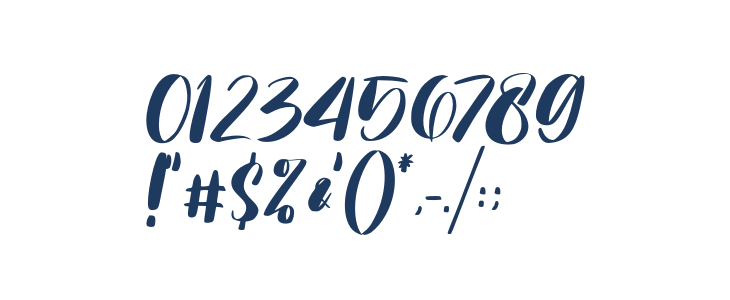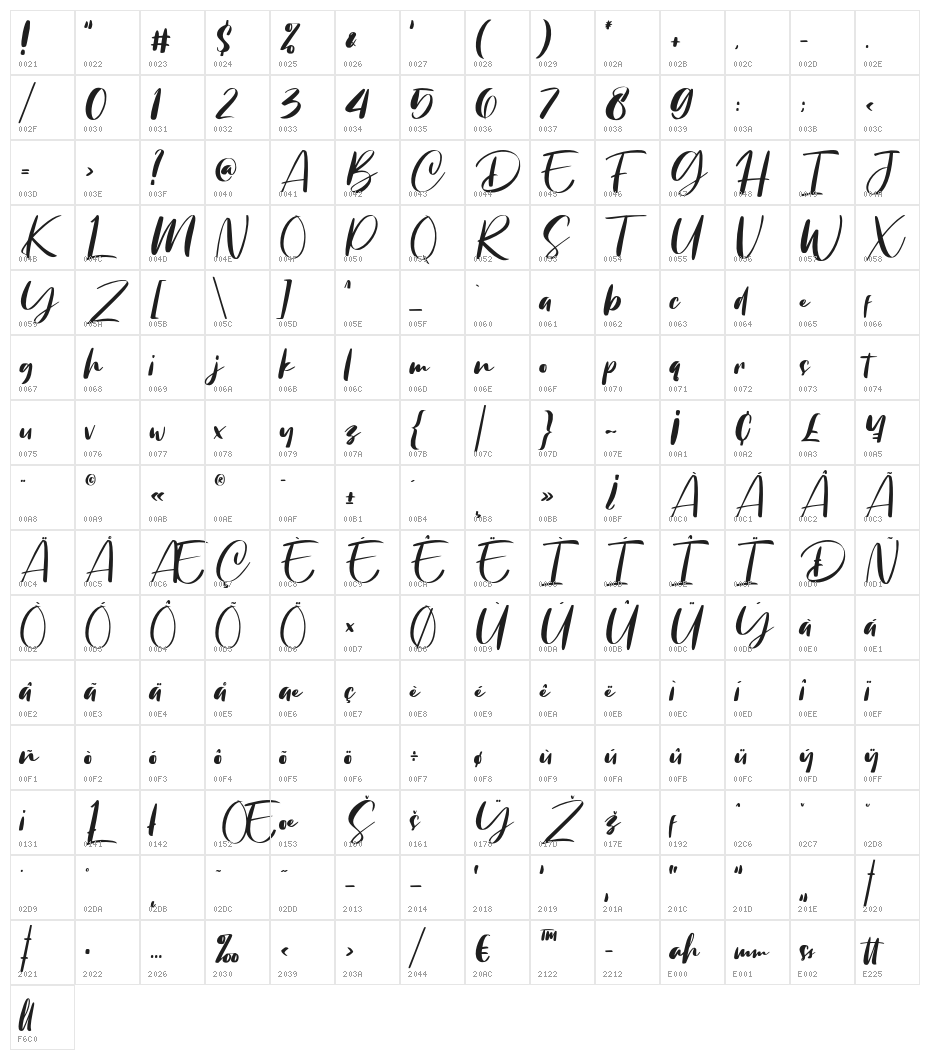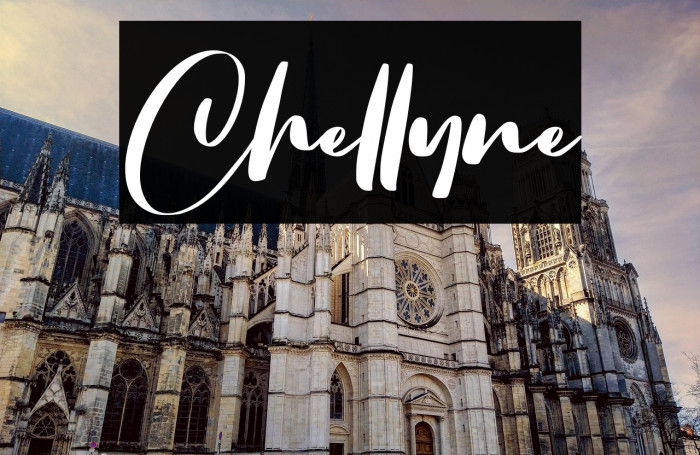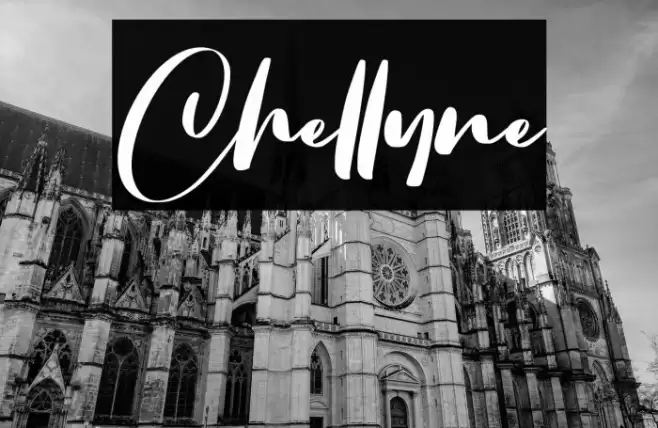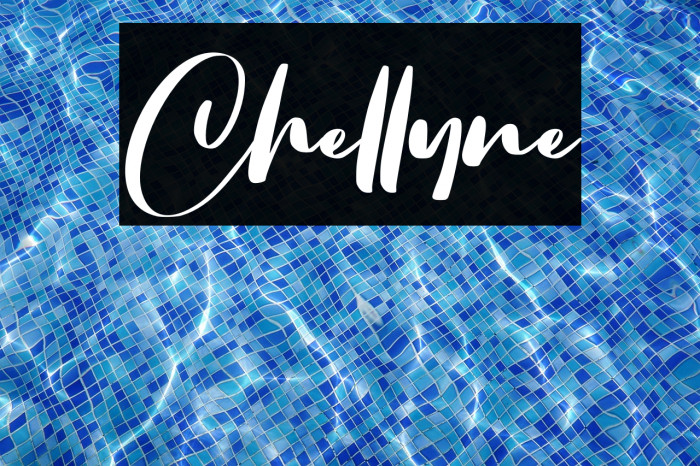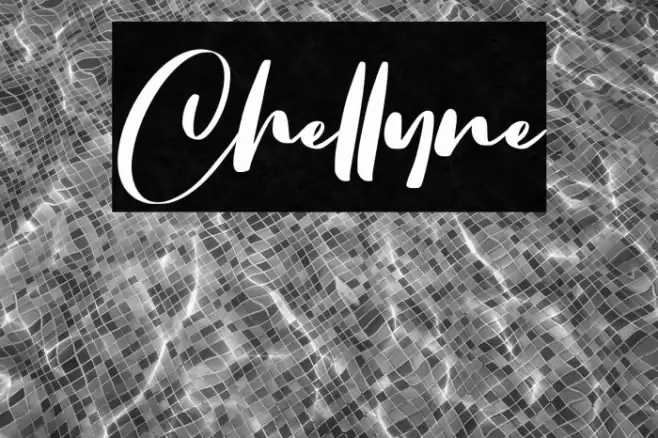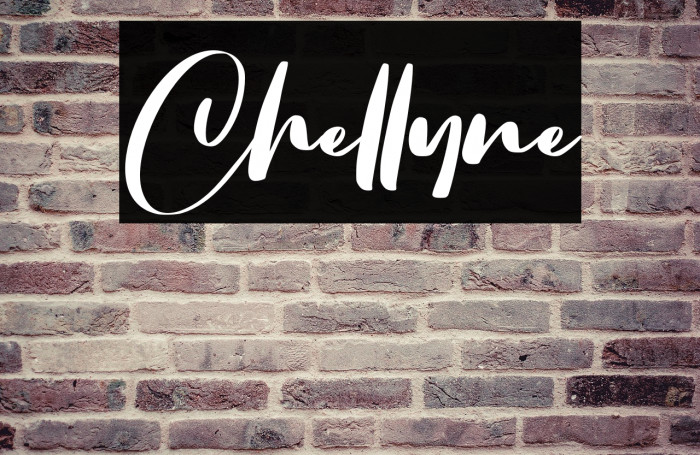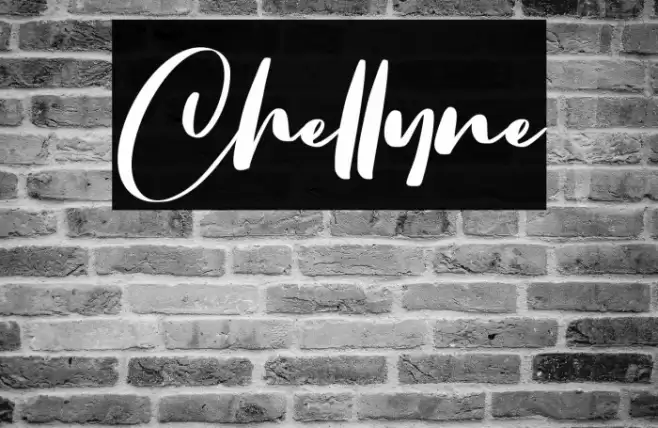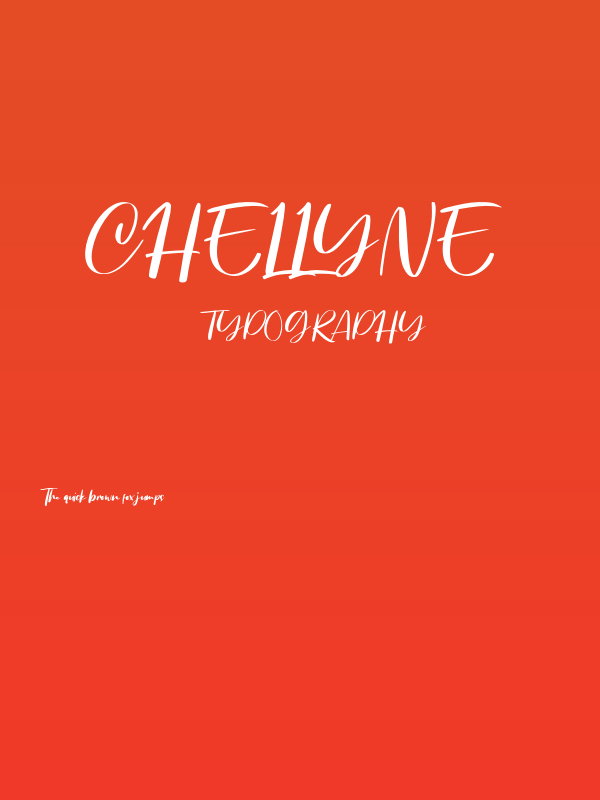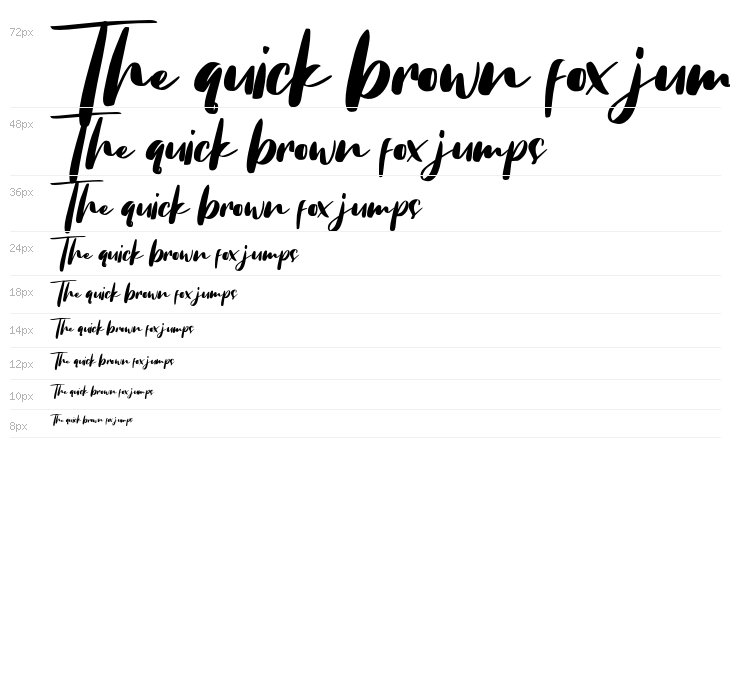
Chellyne Font
Chellyne Description
This font features a dynamic and expressive script style with a modern flair. The uppercase letters are tall and elegant, with fluid strokes that give a sense of movement and grace. The lowercase letters maintain a consistent flow, with some characters exhibiting playful loops and curves. The numerals are bold and distinctive, ensuring they stand out in any design. Special characters are creatively integrated, adding to the font's versatility. Overall, this font exudes a sense of creativity and energy, making it suitable for a wide range of design applications.
| Proposed Projects | Ideal for branding, invitations, social media graphics, and creative projects requiring a personal touch. |